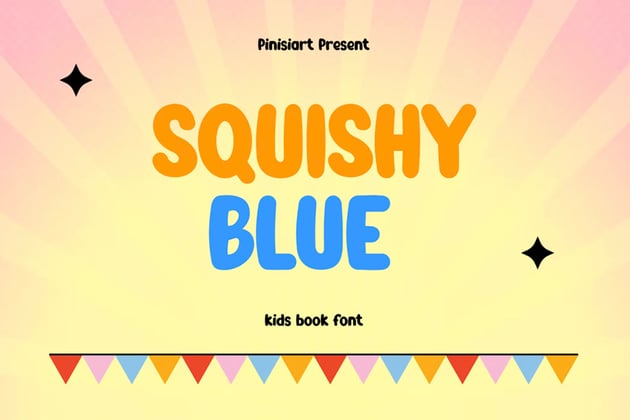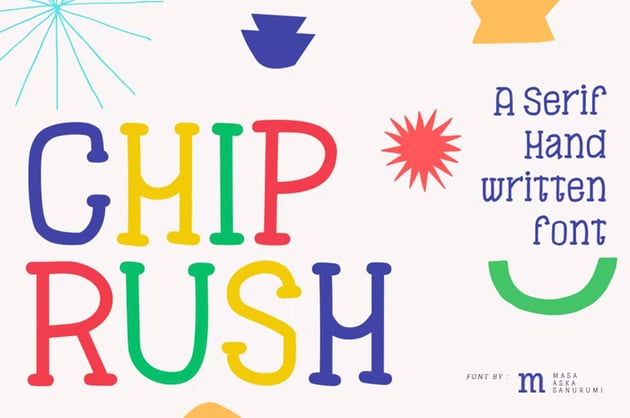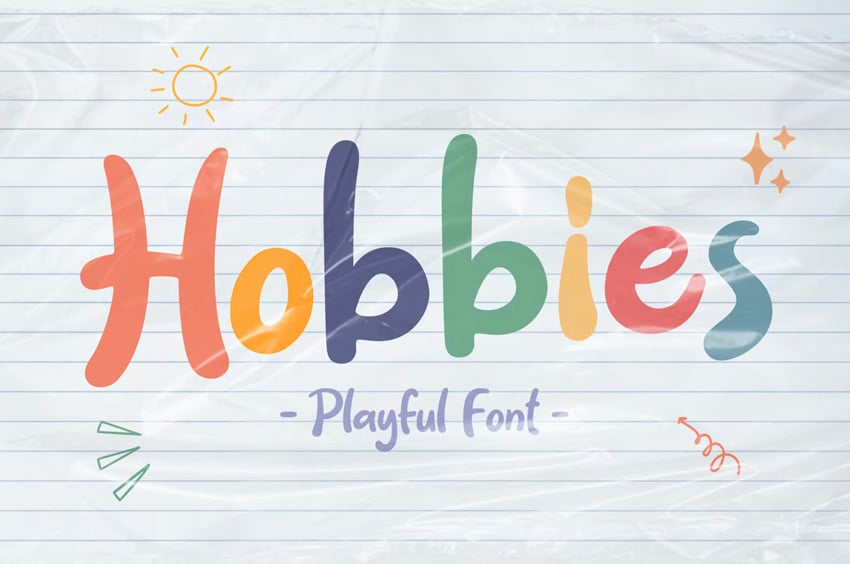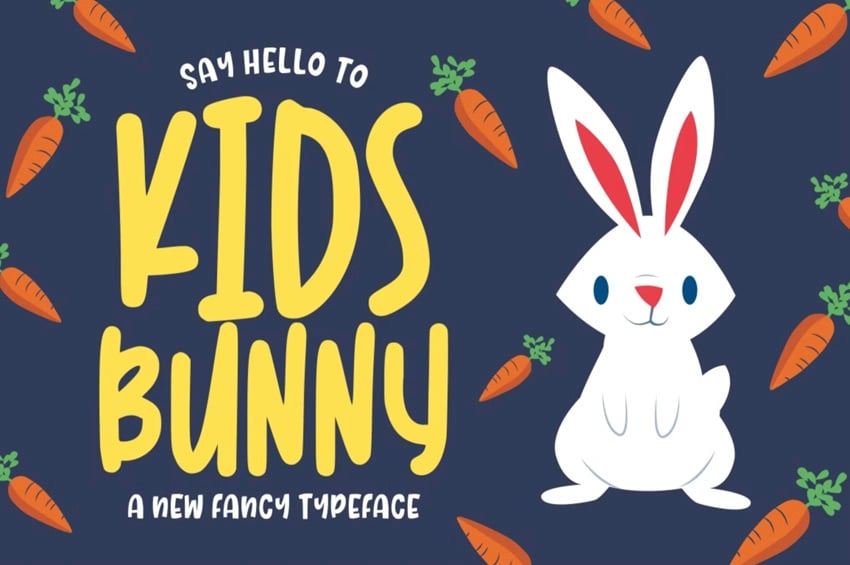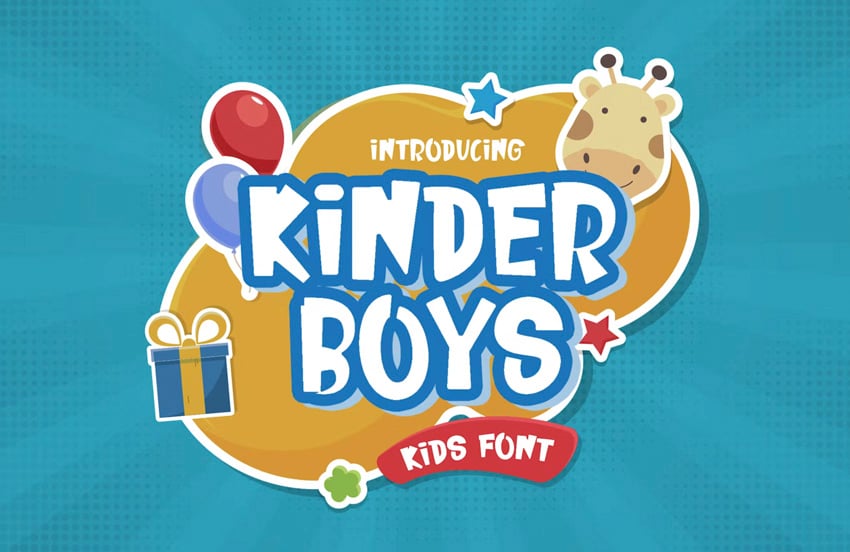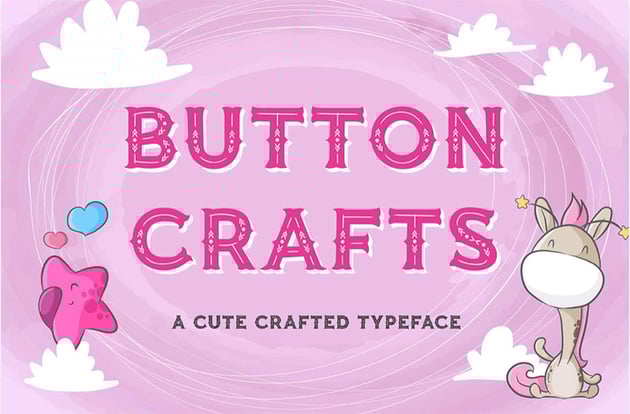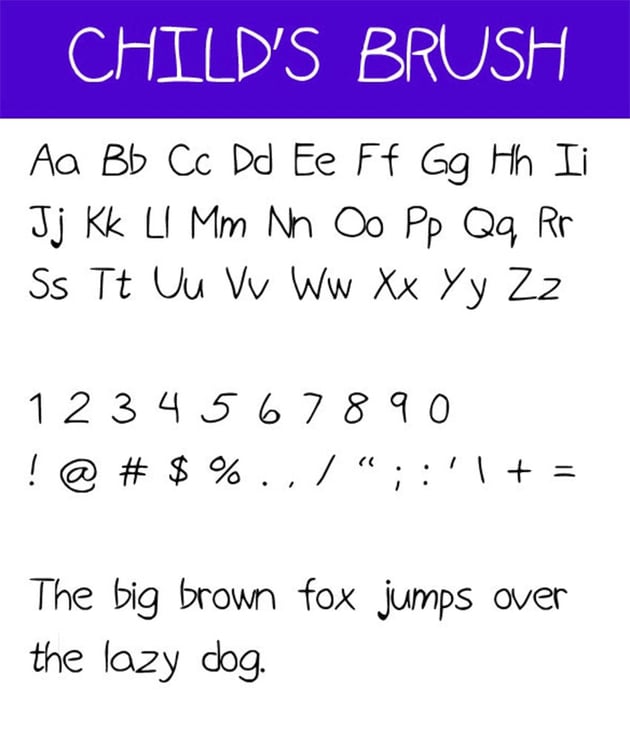
37 Best Child-Friendly Fonts (Kids' Handwriting Styles)
Looking for the best fonts for kids? This list is full of kid-friendly fonts from Envato Elements, perfect for a variety of kids' projects. Whether you prefer kids' handwriting fonts, whimsical childlike fonts, or colourful kid fonts, there's lots of variation here to see!
37 Best Fonts for Kids
1. Monster World Child Font (OTF, AI, EPS)
Monster World is a child handwriting font that kids will love. This fresh and fun font is available in three styles: light, bold, and bounce bold. What's more, the set comes with a fun vector pack of awesome monsters that you can use to complement your designs. If you're looking for boy fonts, Monster World is for you.
2. Batboo Childlike Fonts (OTF, TTF, WOFF)
Batboo is a faux-scary, kid-friendly font, perfect for Halloween celebrations of all kinds. Add it to cards, invitations, T-shirts, games, and other products that target children. This child font style includes uppercase Latin alphabet and foreign language characters, numbers, punctuation, and a bonus of five Halloween monster vector objects.
3. Escape Display Font (OTF, TTF, WOFF)
Here's another terrific child font style for Halloween. Escape is a display font that you can use to emphasise the eeriness of Halloween when you're creating birthday cards, signs, and posters for kid-related events. Uppercase Latin alphabet and foreign language characters, numbers, and punctuation are all included in this kids' letter font.
4. Happy Kid Creative Font (TTF, WOFF, WOFF2, SVG)
Need a fun, creative kids' letter font for your next project for children? How about the aptly named Happy Kid Creative Font? This display font is bold, playful, and colourful, all the qualities you need in a font designed for children.
5. Hello Lijo Child Font (OTF, TTF, WOFF, WOFF2, SVG, EOT)
Hello Lijo isn't just designed for children—it borrows the charm of a child's penmanship to create a font that looks like handwriting. This child handwriting font includes a set of playful graphics that you can include in your designs. It's one of the many cool fonts for kids on Envato Elements that you can use for books, posters, and other projects.
6. Graham Cracker Children's Font (OTF, TTF)
The Graham Cracker kids' bold font is everything that the American snack is famed to be: fun, familiar, and versatile. It was inspired by a 1960s movie poster, and it contains over 175 interlocking ligatures that give it a hand-lettered feel and allow you to create a font that looks like handwriting.
7. Book Worm Child Handwriting Font (OTF, TTF, WOFF, EOT)
Here's a kids' handwriting font that's simple, fun, and very easy to read. Based on hand lettering with a paintbrush, the kids' letter font includes upper and lowercase Latin characters, numbers, punctuation, and simple ligatures. Use this kids' writing font for book titles, greeting cards, posters, and other child-friendly projects.
8. Kido Children's Lettering Font (OTF, TTF, WOFF)
Kido is one of the boy fonts that, though not exactly a kids' handwriting font, is inspired by children's handwriting. This fun display font offers tons of glyphs and ligatures so you can create a style that's all your own. Use this kids' block font wherever you need a bold, eye-catching typeface.
9. Pagi Ceria Extraordinary Display Font (OTF, TTF, WOFF)
Need fonts that look like handwriting? Pagi Ceria is an exciting display font that will make your child-themed design stand out! With bold, eye-catching letters and tons of glyphs, this child writing font is a great choice for branding projects, logos, T-shirt designs, book cover designs, etc.
10. Blendstripe Kids Writing Font (OTF, TTF, WOFF)
Looking for a kids' handwriting font with a bit of a twist? Check out Blendstripe, a hand-drawn inline font that's perfect for your children's projects. The font features the kind of inconsistent lettering you find in simple handwriting fonts and softly rounded corners that add a warm and friendly touch.
11. Babelgamee Children's Font (OTF, TTF, WOFF)
You have to admit that this kids' block font is super cute. Round and shiny, Babelgamee is an excellent choice for all child-friendly projects, including posters, book covers, wall art, T-shirts, and much more. The kids' play font offers four styles: regular, shadow, base, and shine.
12. Anima Cute Kid Fonts (OTF, TTF, WOFF)
And speaking of charming and endearing kids' bold fonts, how absolutely adorable is Anima? With a wonderful collection of upper and lowercase letters, numbers, and punctuation, plus a bonus addition of ten sweet animal vector objects, Anima is a font that you need in your toolbox if you design anything for children.